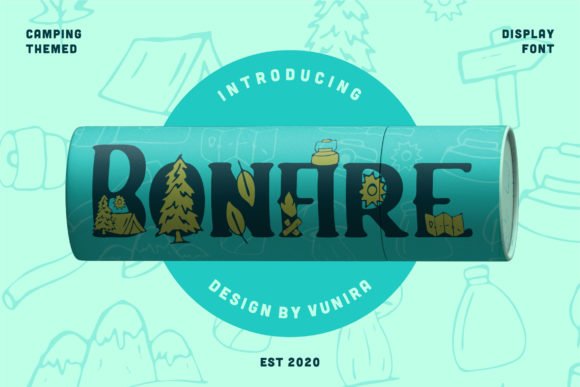
Introduction to Bonfire Font
Perfect for this time of the year, Bonfire is an original and fun decorative font.
Add it each of your autumn and camp related ideas and notice how they come alive .
Key Features of Bonfire Font